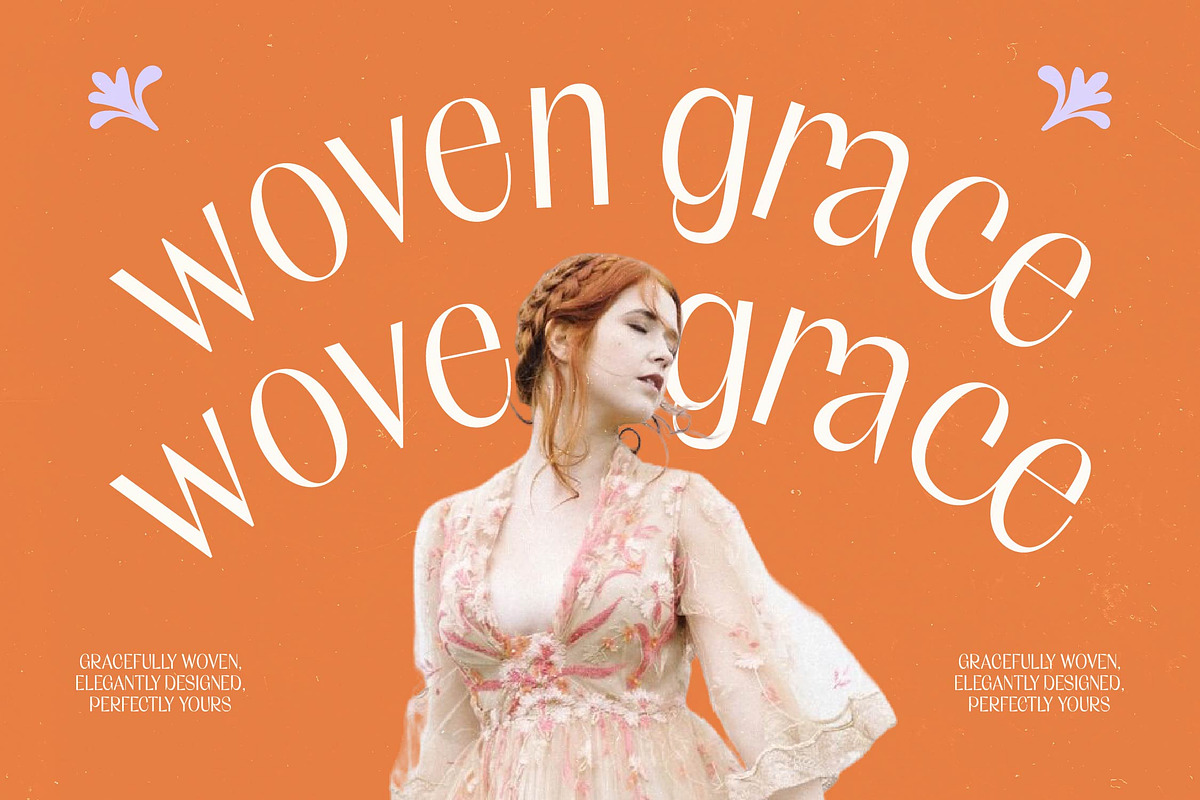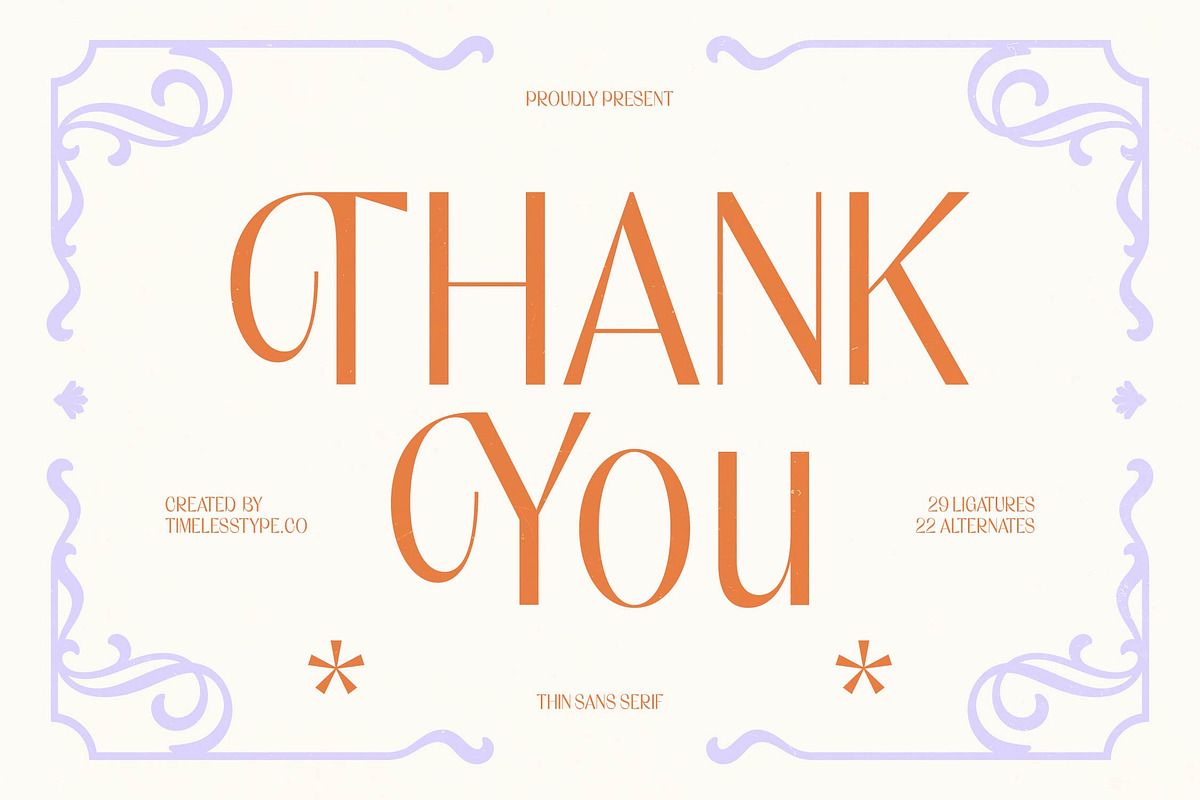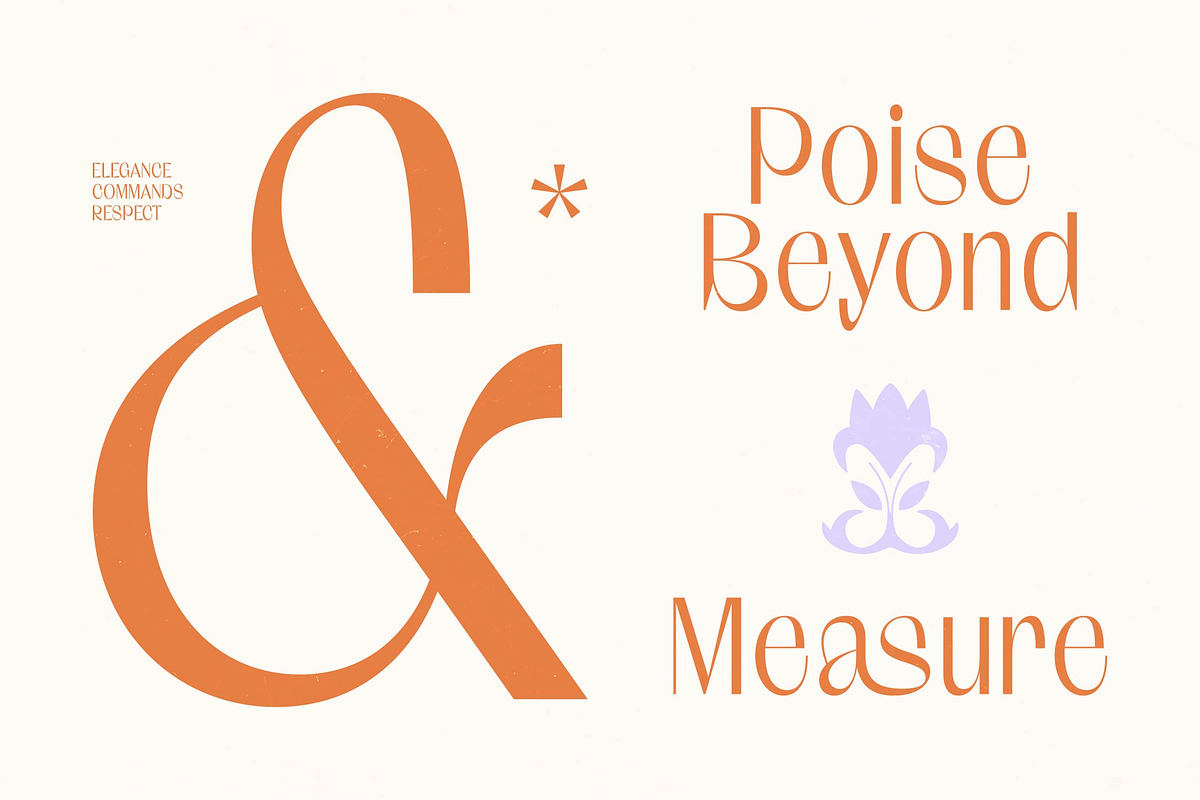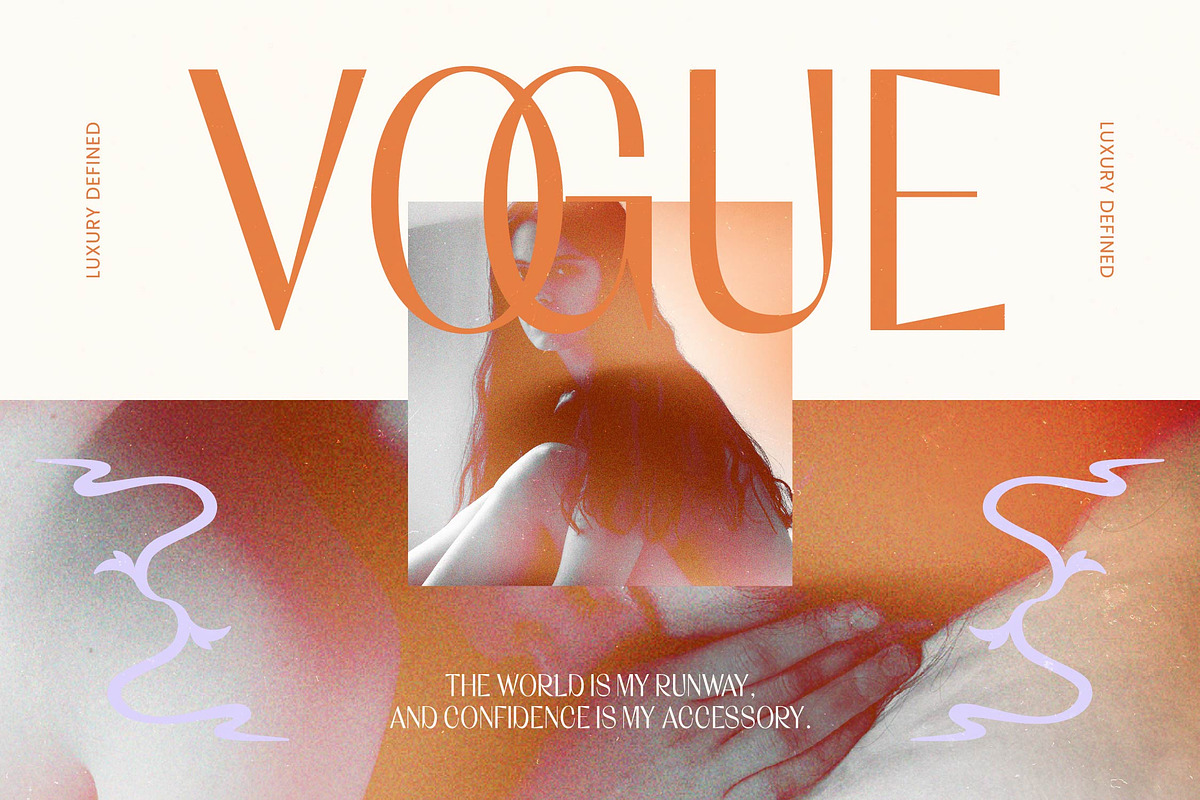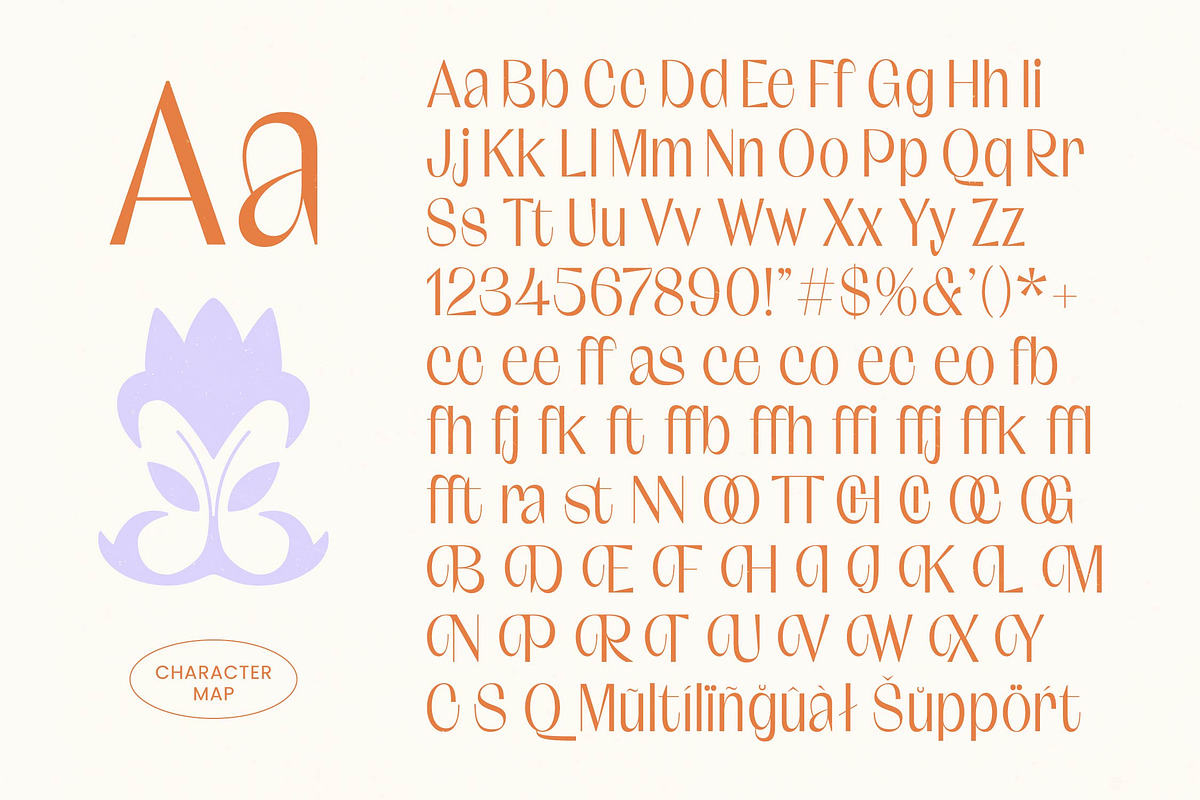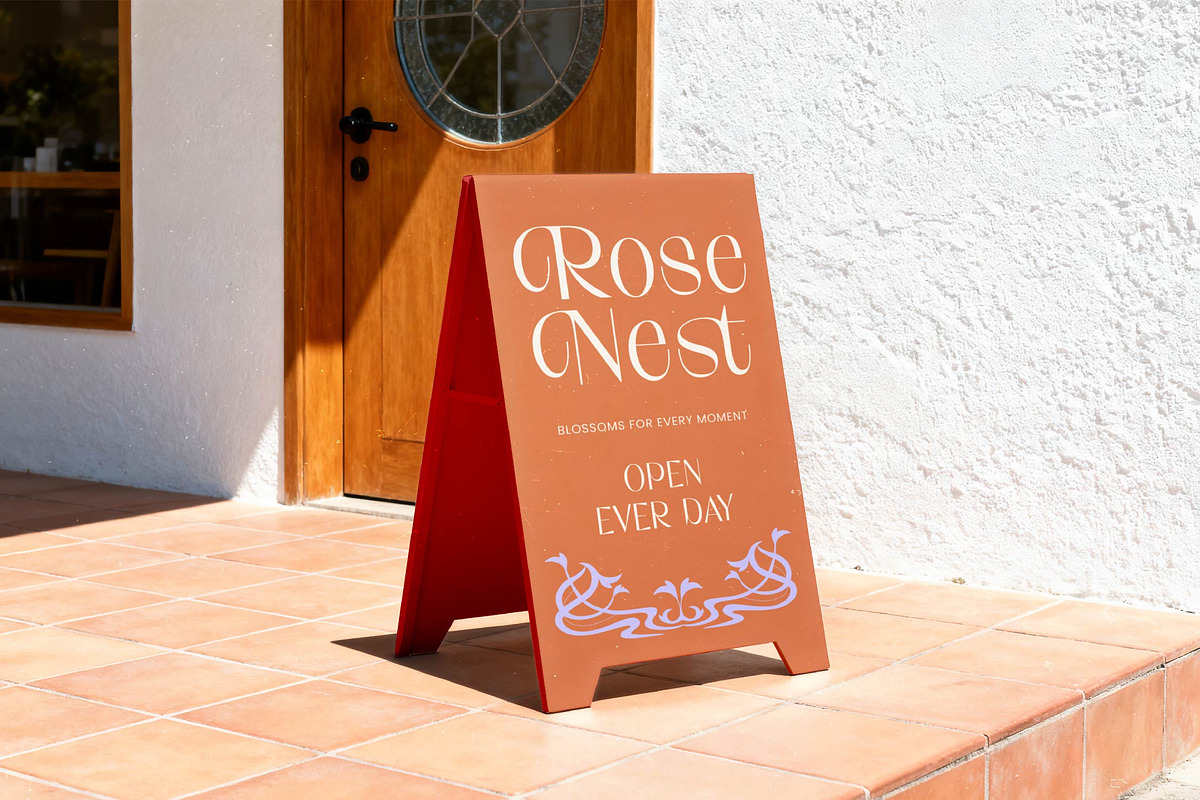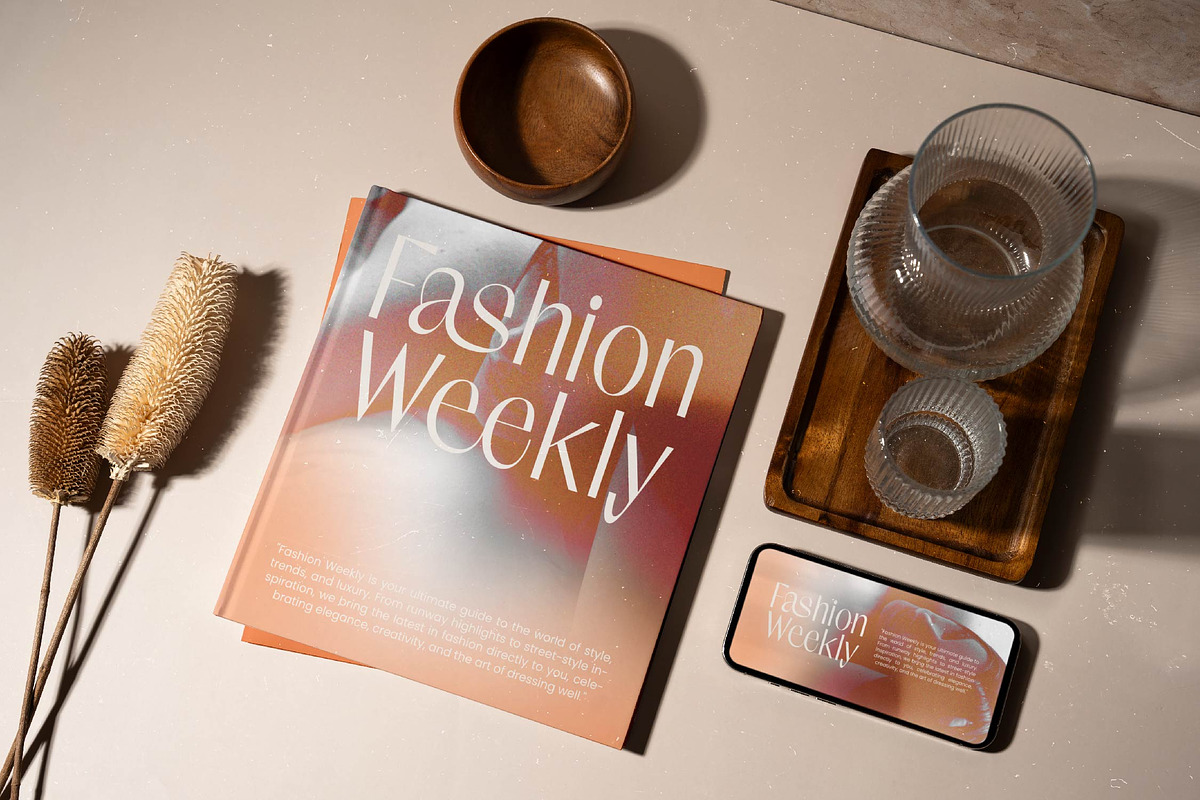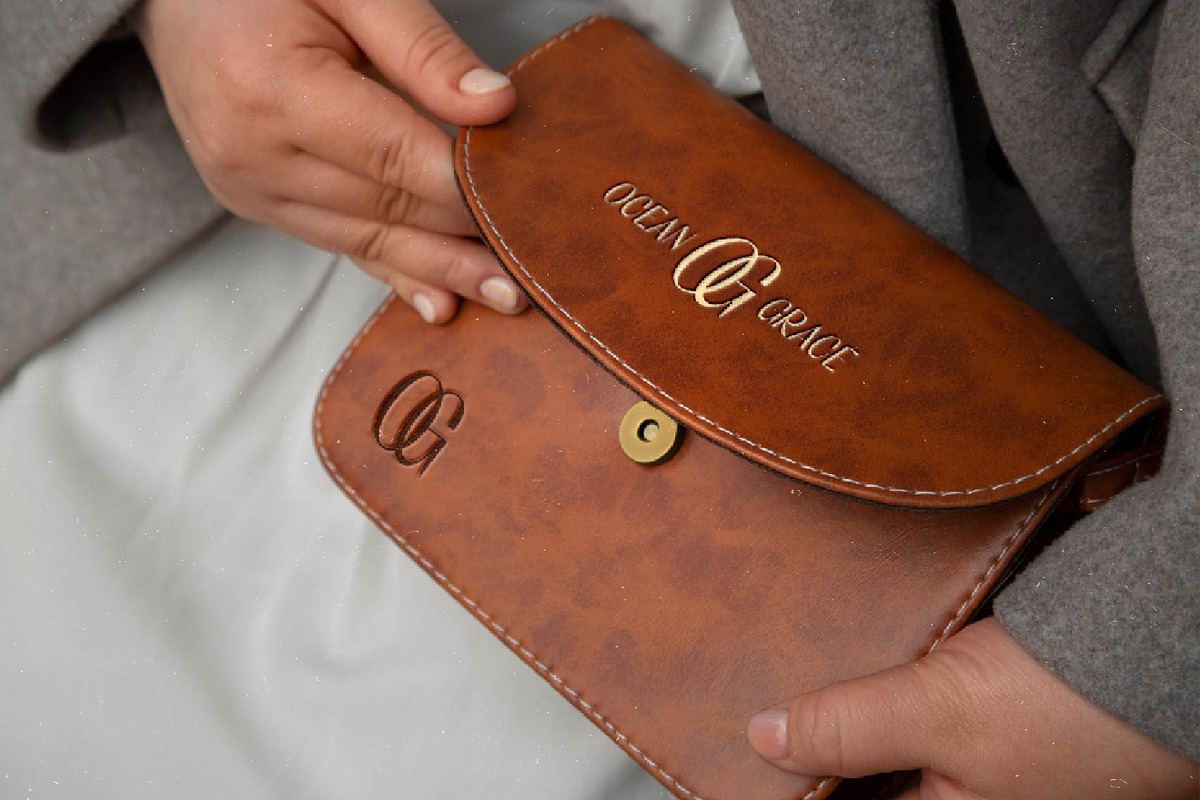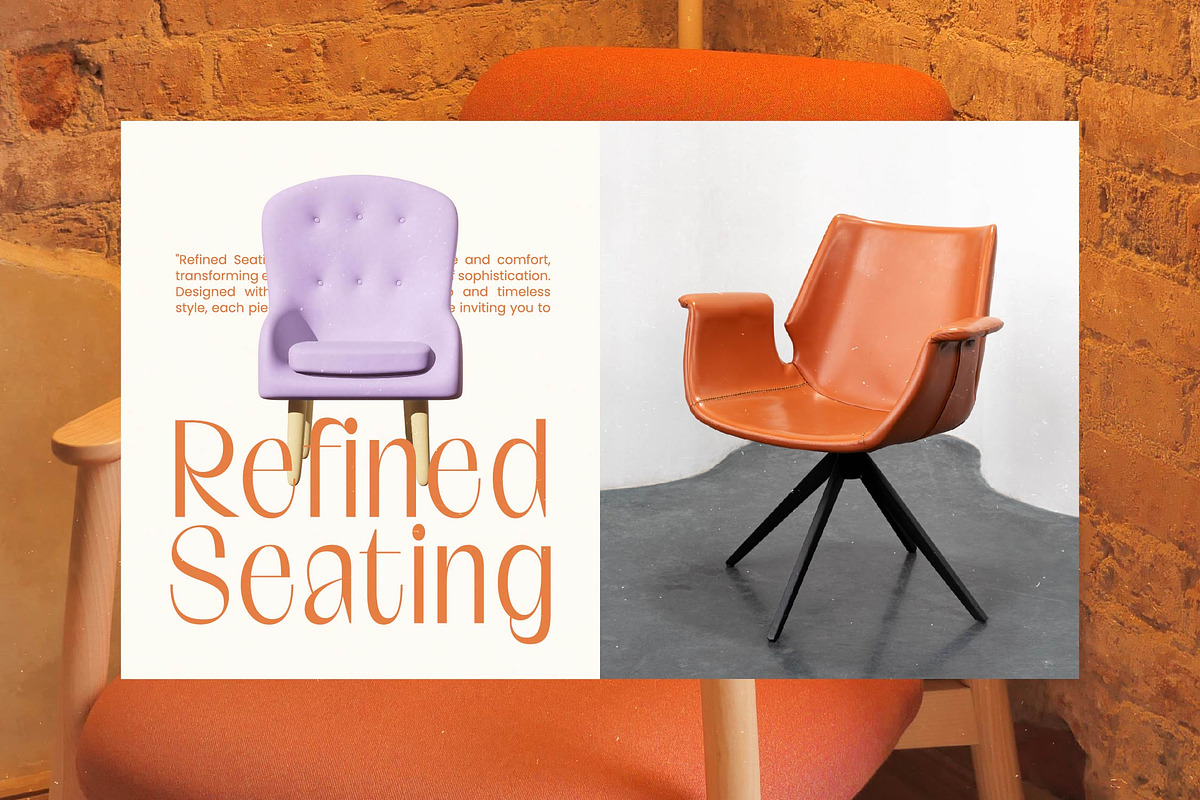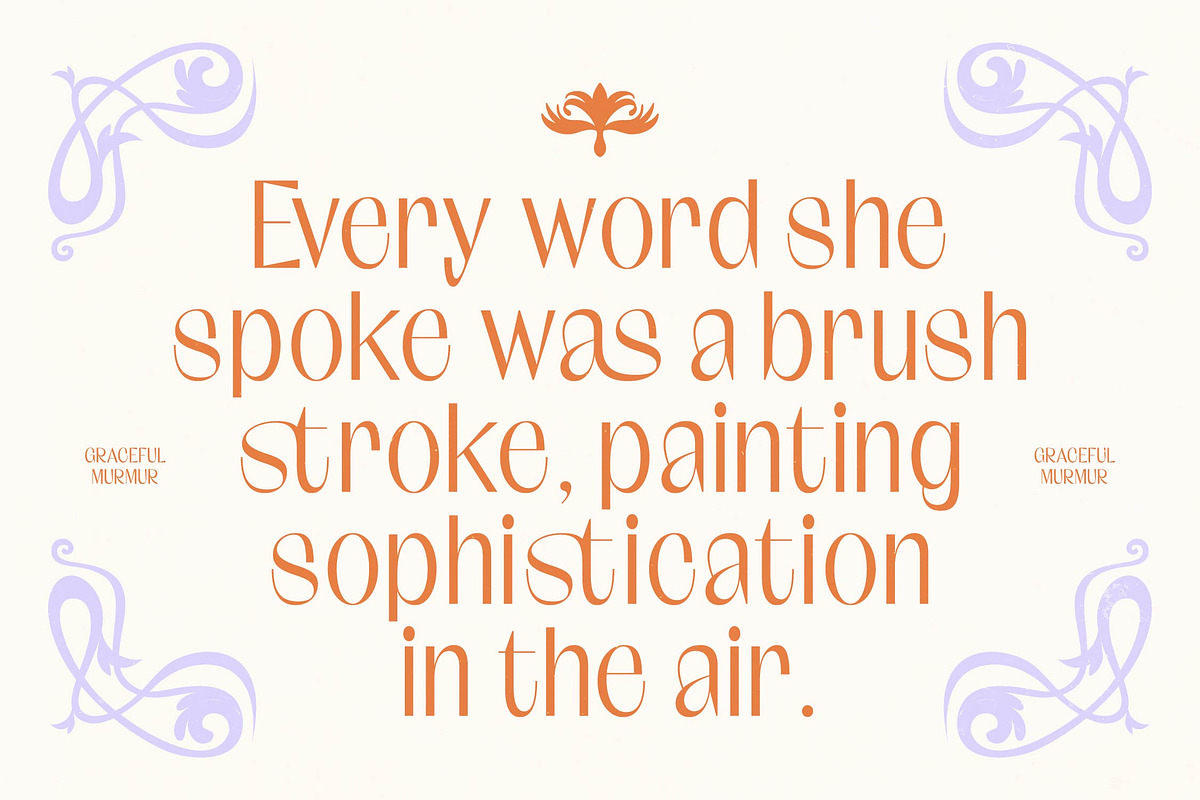
Richeks Kosta Thin Sans Serif
Richeks Kosta – Thin Sans Serif ,Elevate your design projects with unmatched sophistication using Richeks Kosta – Thin Sans Serif. This contemporary display typeface masterfully blends high-contrast strokes with a minimalist aesthetic, resulting in a visual experience that is both timeless and trendy. It exudes an aura of exclusivity and refined grace, making it an essential choice for designers seeking to convey premium quality through typography.
Discover the perfect typographic solution for your high-end brand identity and visual storytelling. Richeks Kosta – Thin Sans Serif is specifically engineered for luxury branding, high-end packaging, and sophisticated editorial design. It is perfect for logo design, fashion magazines, and lifestyle advertising where a clean look is paramount. Its selection of unique ligatures and artistic alternates allows for customized layouts that capture the viewer's attention instantly.
Expand your creative reach across borders with ease and technical reliability. With its extensive multilingual support, Richeks Kosta – Thin Sans Serif adapts seamlessly across global markets, making it incredibly versatile for international projects. This ensures that your visual identity remains consistent and impactful across various regions, providing a cohesive brand experience for a diverse global audience without compromising on style.
Invest in a typeface that combines artistic flair with professional functionality for your next project. By choosing Richeks Kosta – Thin Sans Serif, you are selecting a premium design asset that balances artistic personality with commercial clarity. Whether crafting upscale invitations or digital interfaces, this font offers the versatility and elegance required to captivate your audience. Secure this timeless typeface today and transform your creative vision into a visual masterpiece.